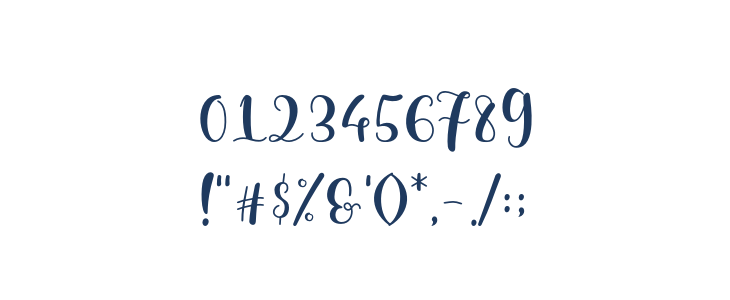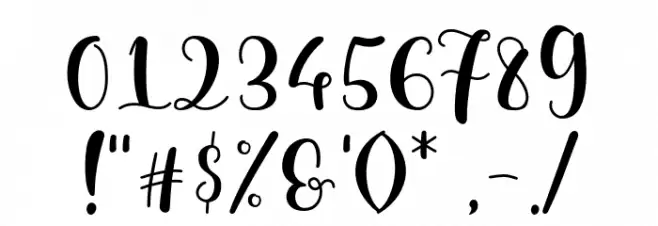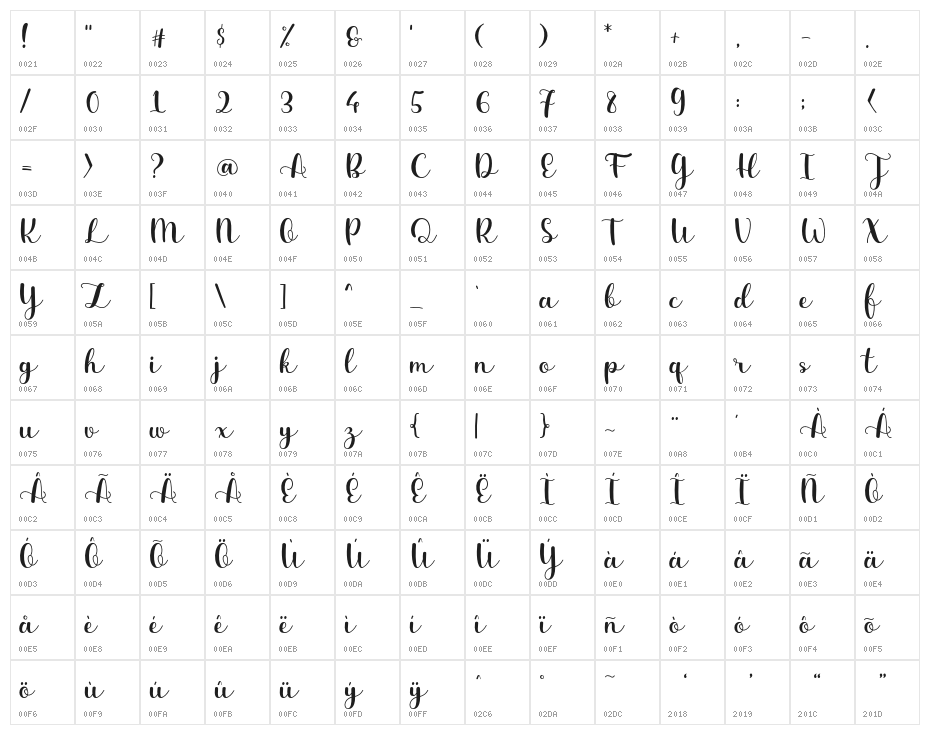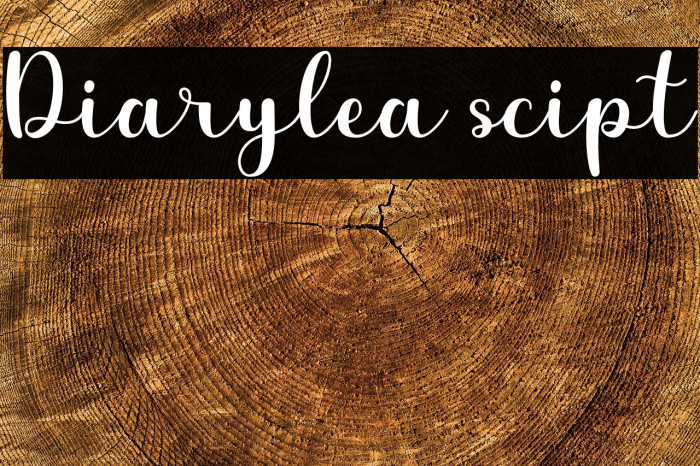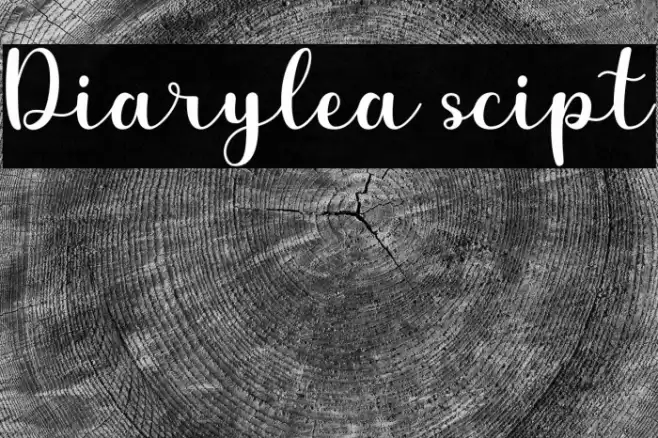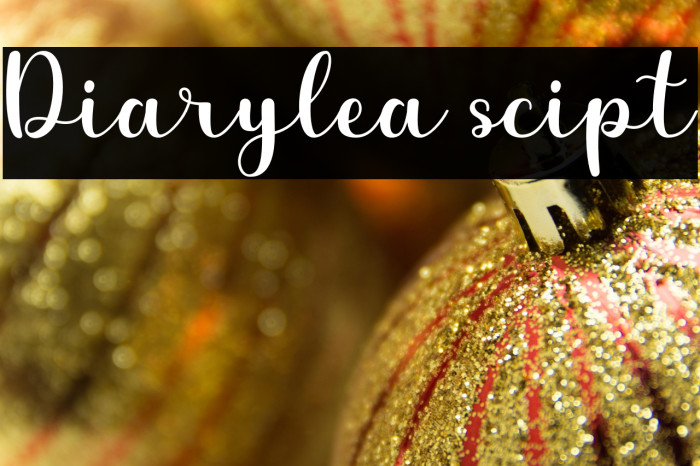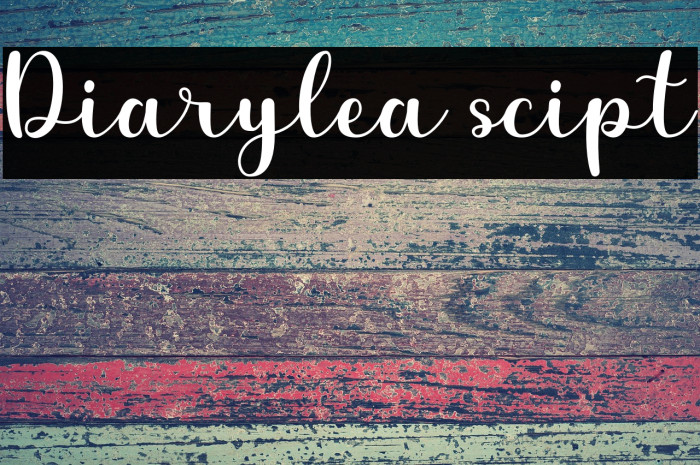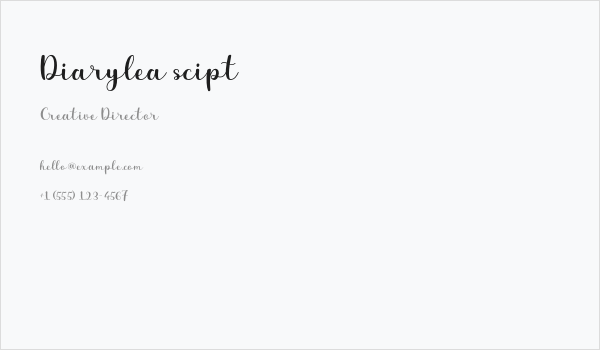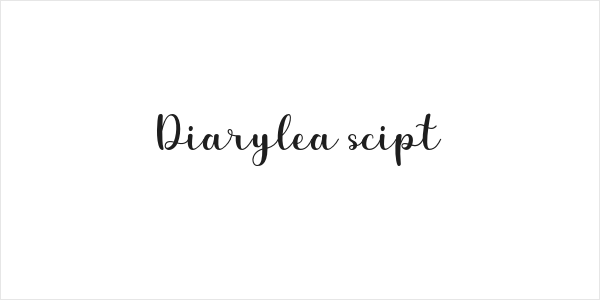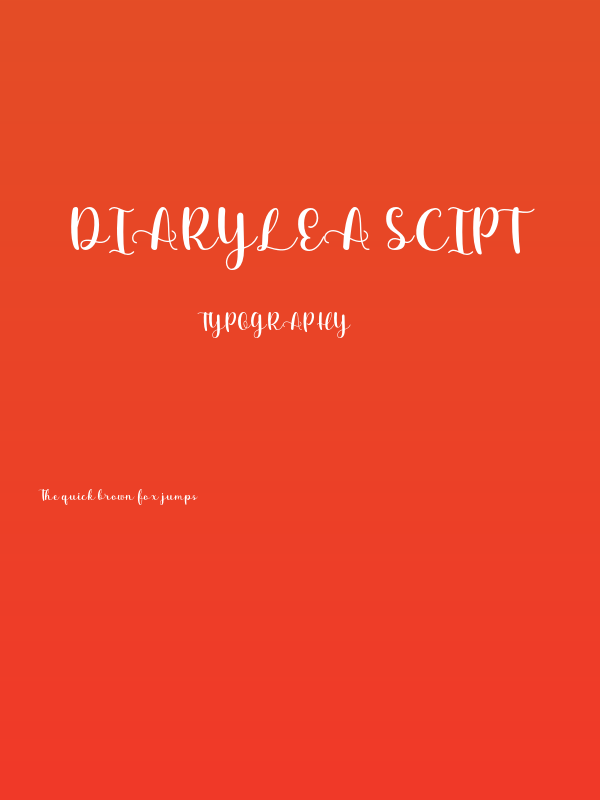
Diarylea scipt Font
Diarylea scipt Description
This font features a flowing, cursive style with elegant loops and swashes, giving it a handwritten appearance. The uppercase letters are bold and expressive, with distinctive flourishes that add a touch of sophistication. The lowercase letters maintain a consistent flow, enhancing readability while preserving the artistic flair. Numbers and special characters are crafted with the same attention to detail, ensuring a cohesive look across all elements. The overall design is both playful and refined, making it suitable for a variety of creative applications.
Use CaseLogos, Invitations, Decorative text
Proposed ProjectsIdeal for wedding invitations, greeting cards, branding, and decorative projects.